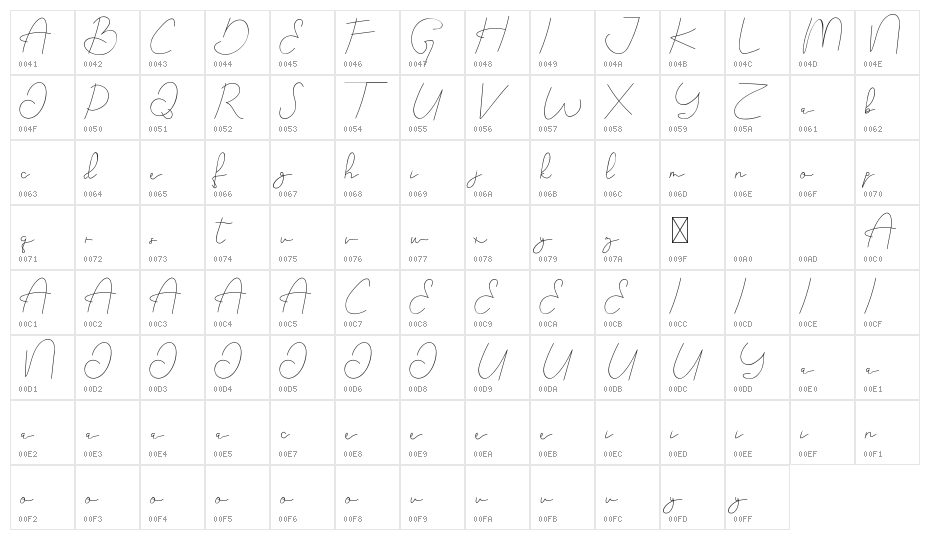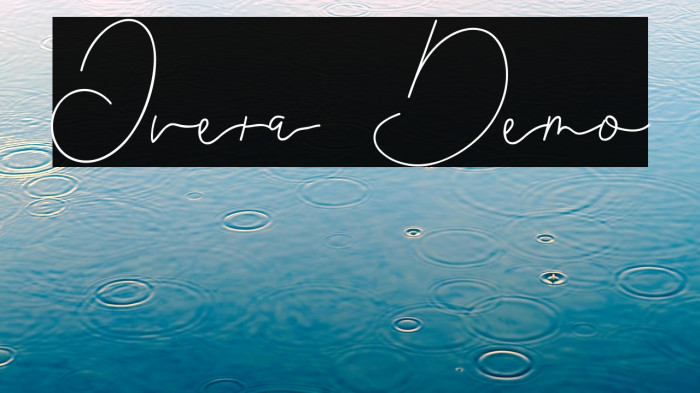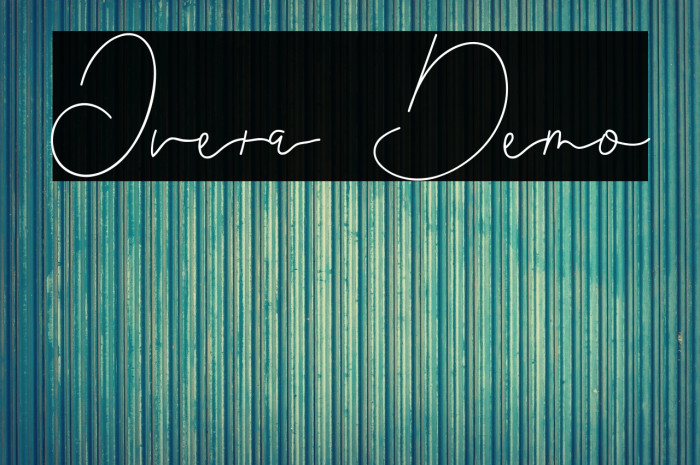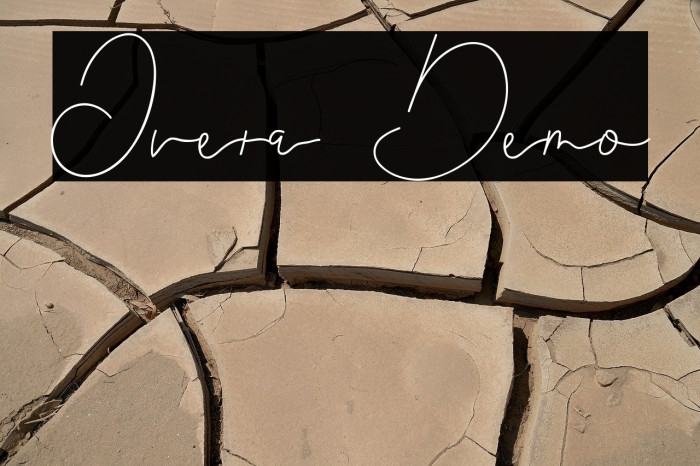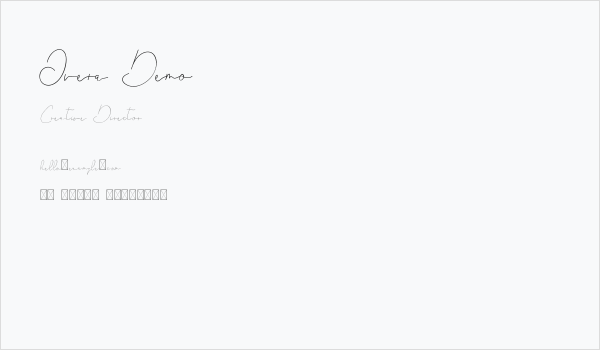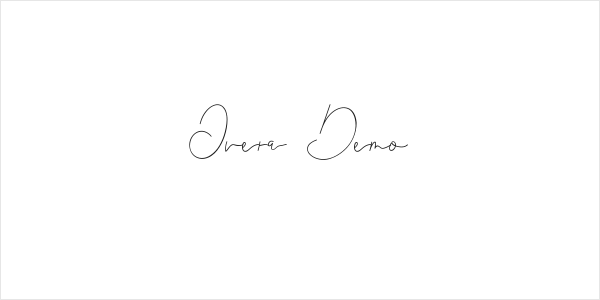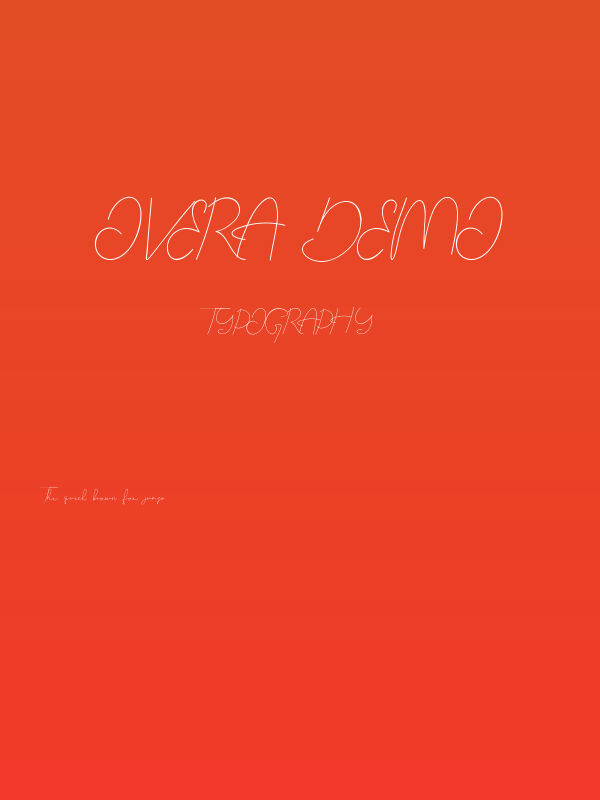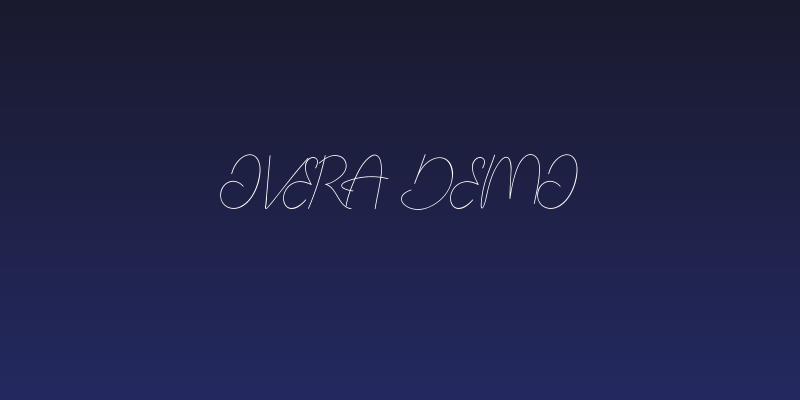
Overa Demo Font
Overa Demo Description
This font features an elegant and flowing script style, characterized by its thin, delicate lines and cursive letterforms. The uppercase letters are tall and slender, with a graceful, looping design that adds a sense of movement and fluidity. The lowercase letters maintain a consistent style, with smooth connections and a slightly more compact form. The overall appearance is sophisticated and artistic, making it suitable for projects that require a touch of elegance and creativity. The font's thin strokes and airy design give it a light and ethereal quality, perfect for adding a personal and handwritten touch to any design.
| Overall Style | Elegant, Artistic |
| Use Case | Logos, Invitations, Decorative text |
| Proposed Projects | Ideal for wedding invitations, greeting cards, branding, and elegant packaging designs. |